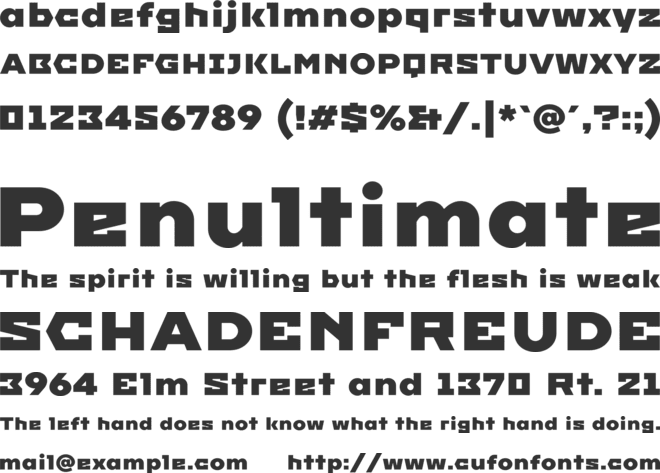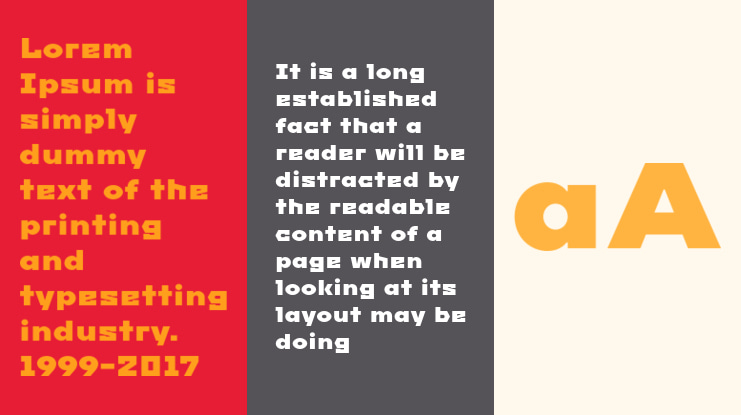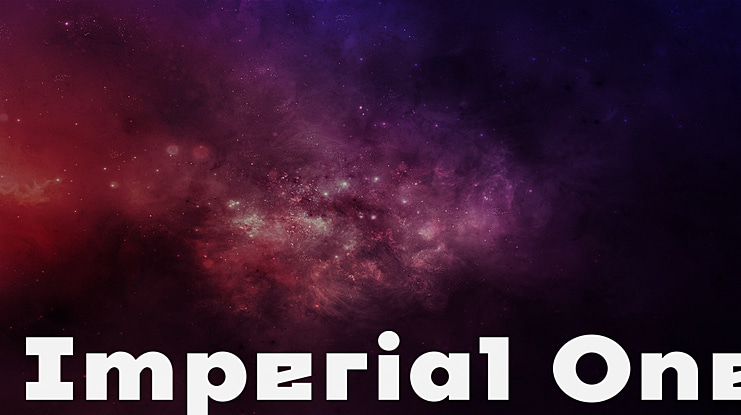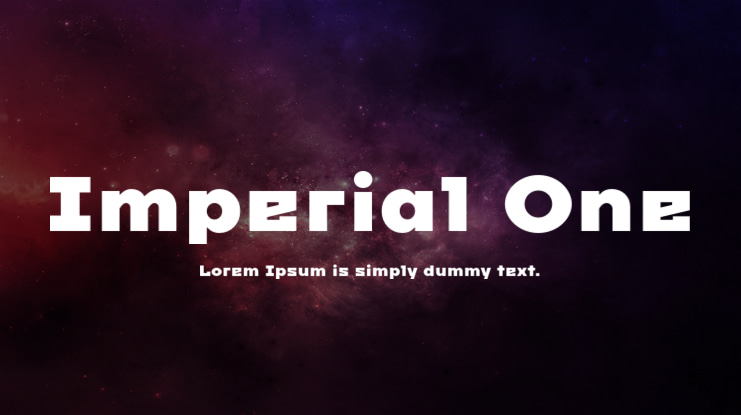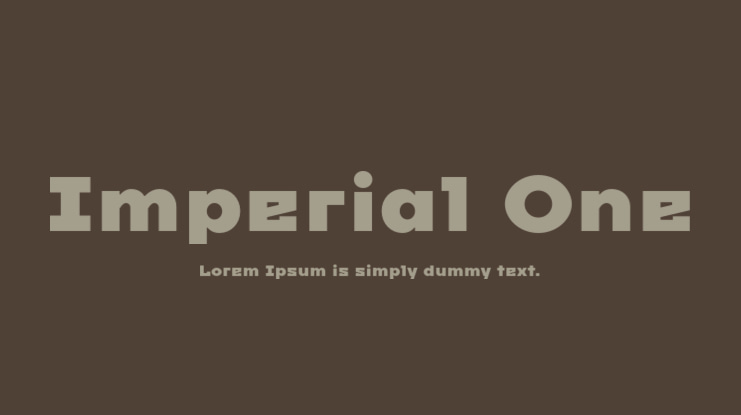
Imperial One Font
This font is based on the corporate font for the game The Mandate. The Mandate is a science fiction roleplaying game which sees the player as a disgraced space captain who gets one chance at redemption and is the last desperate hope for the newly crowned Empress to restore peace and secure the future of humanity.